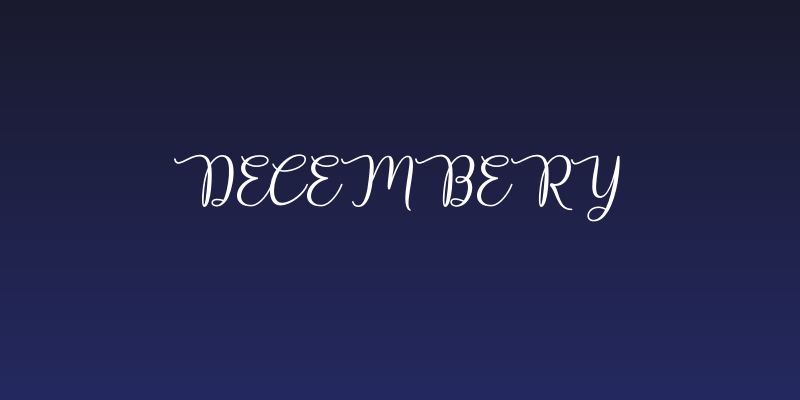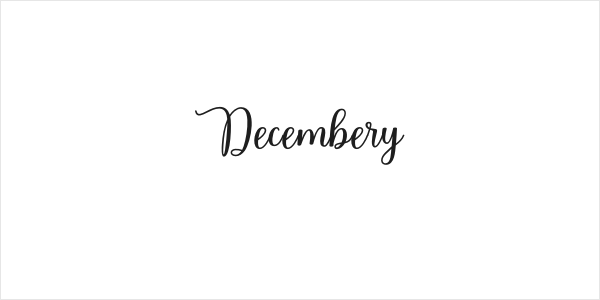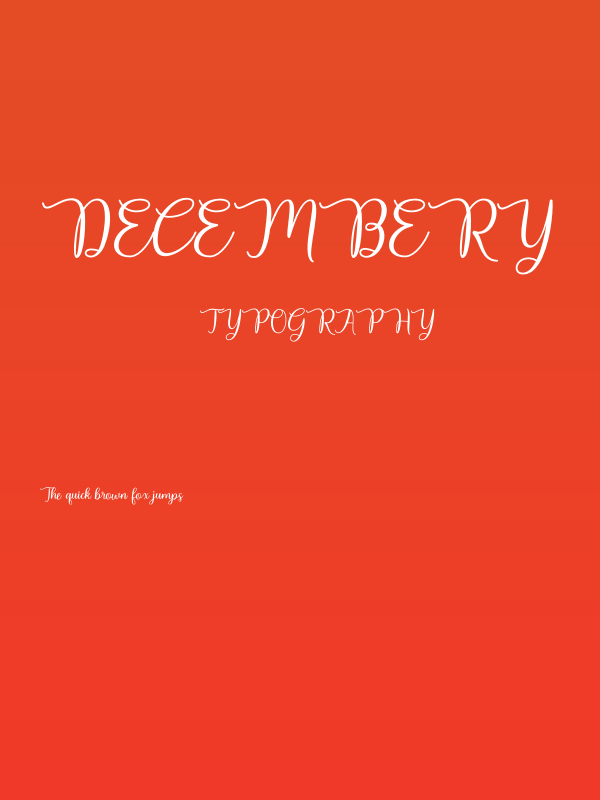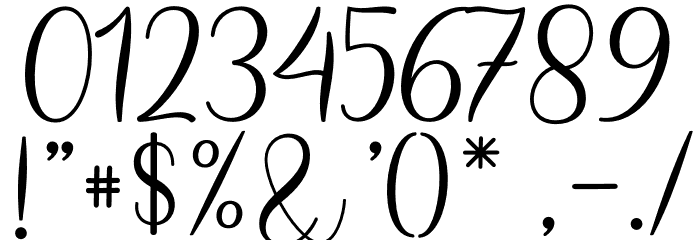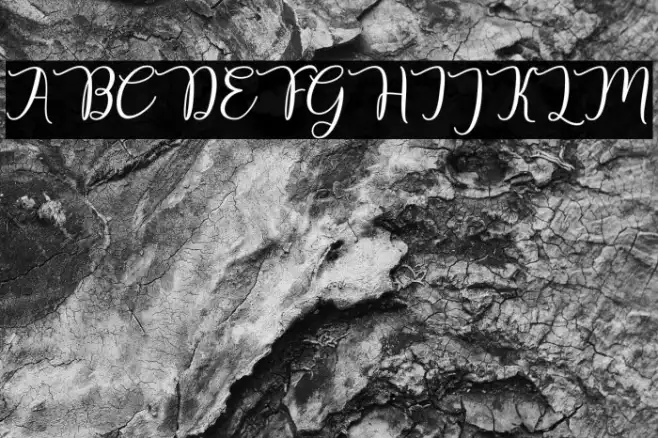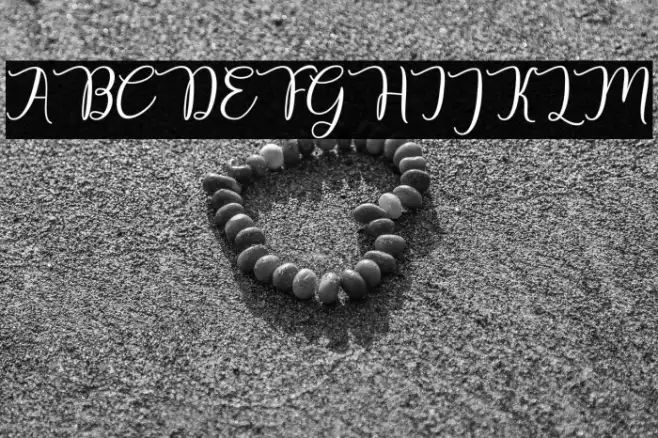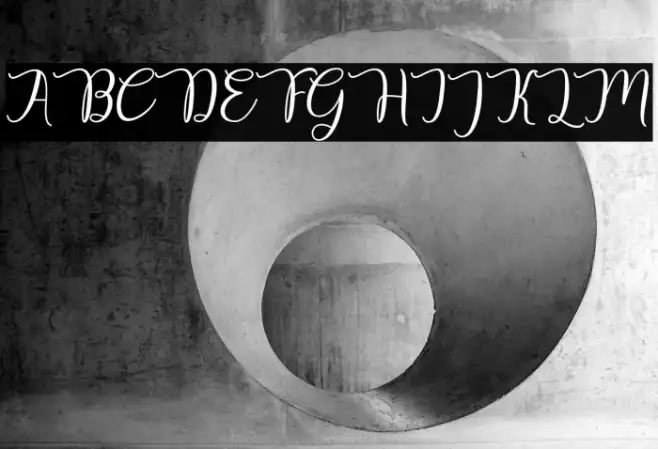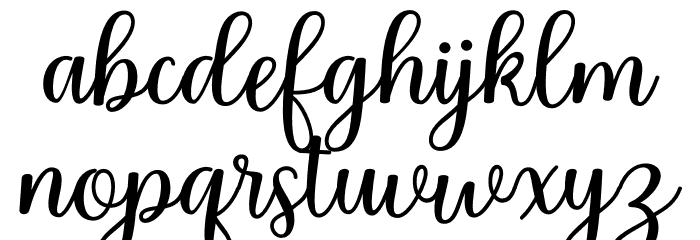
Decembery Font
Decembery Description
This font exhibits a charming and elegant script style, characterized by its fluid and connected letterforms. The uppercase letters are gracefully designed with a slight slant, while the lowercase letters maintain a consistent flow, enhancing readability. The numerals are distinct and easy to distinguish, complementing the overall aesthetic. Special characters are thoughtfully integrated, maintaining the font's cohesive appearance. The font's design is suitable for adding a personal touch to various projects, offering a blend of sophistication and approachability.